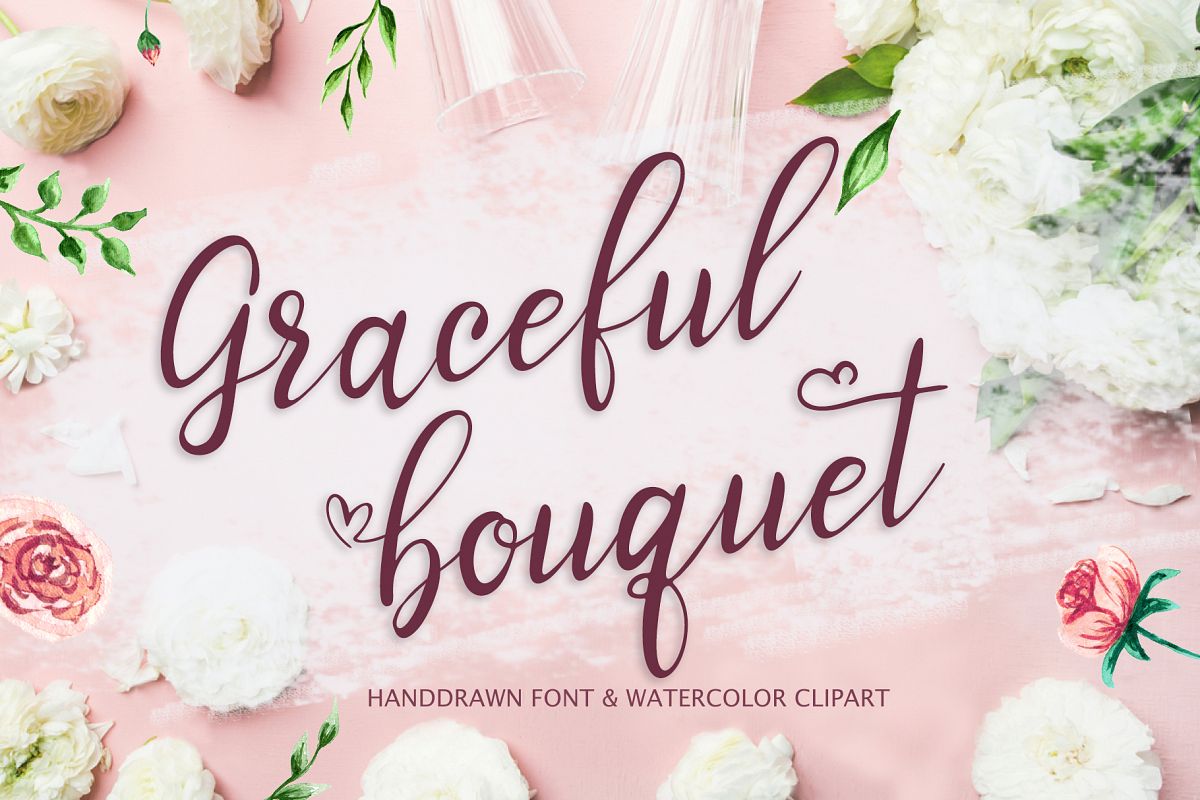
Graceful bouquet-lovely font&clipart
GracefulBouquet-Script
Hi guys!I'm happy to introduce you a Graceful bouquet-lovely font&clipart.This font can be used easily and simply because there are a lot of features in it to contain a complete set of letters lower and uppercase letters, assorted punctuation, numbers, and multilingual support.These characters are accessible via software with a glyphs panel.Also it includes:
• lowercase beginning and ending swashes
• lowercase ending heart swashes, which serve to connect two words or letters
Foreign Languages SupportGraceful bouque Font come with PUA Unicode that gives you full access to the ligatures and alternates in software that doesn't support the extra characters.